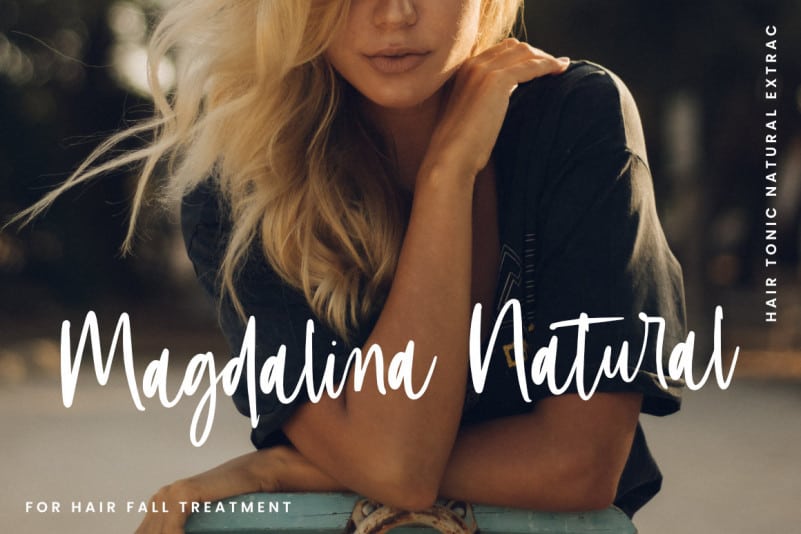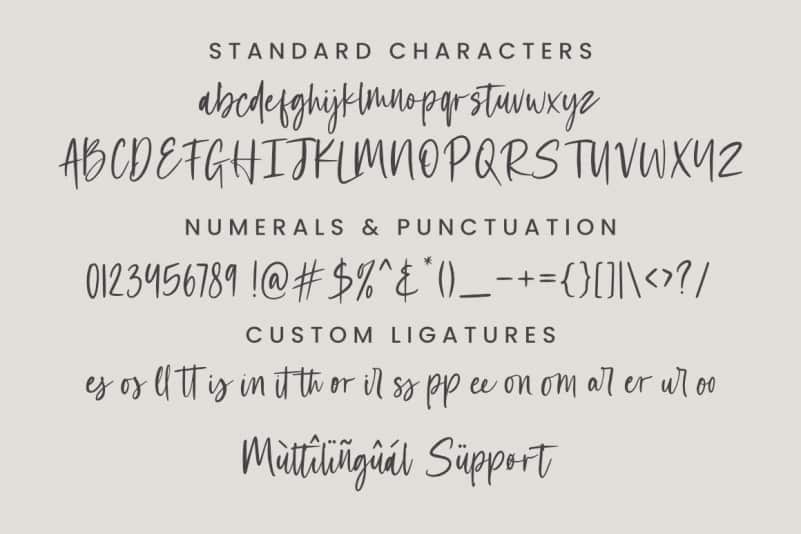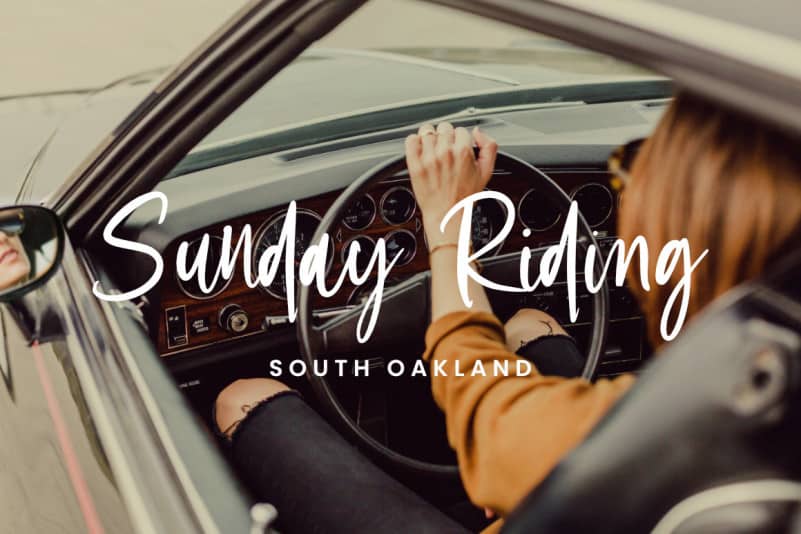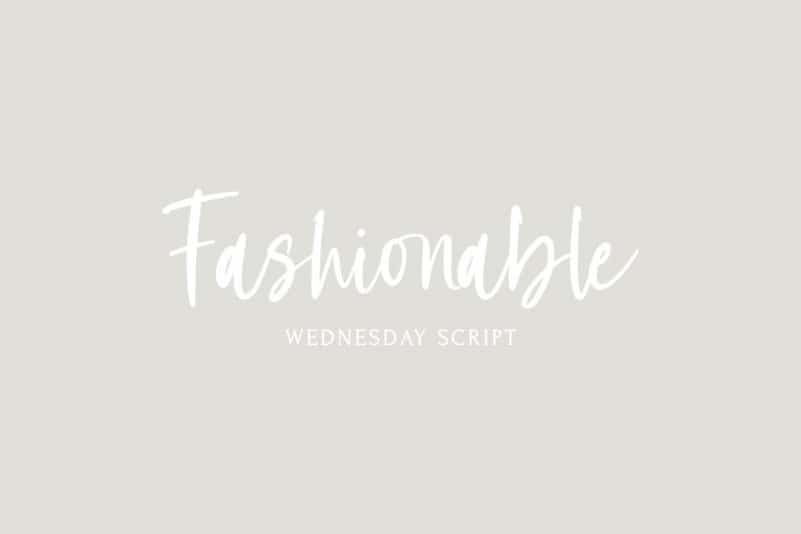
Wednesday Script Font
Wednesday Script Font is an unique handwritten font. Whether you’re using it for crafting, digital designing, presentations, or greeting card making, it’s perfect!
Fall in love with its incredibly versatile style and use it to create spectacular designs!